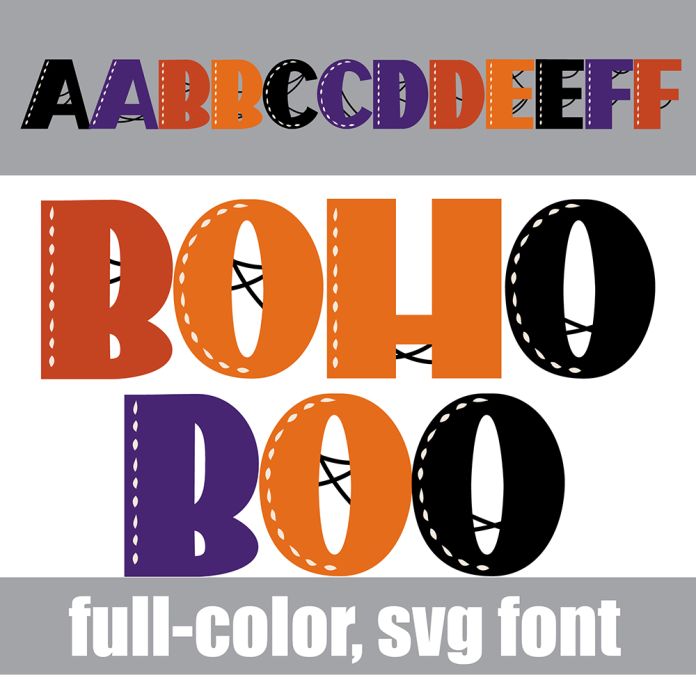
This full-color font features a simple sans serif with stitches and webs in a Halloween color palette. There is an alt case with additional colors you can access through your system's character map. This font works best for titles, displays, posters and more. Please note color fonts will show as black in non compatible programs. This font type is compatible with Silhouette Studio.